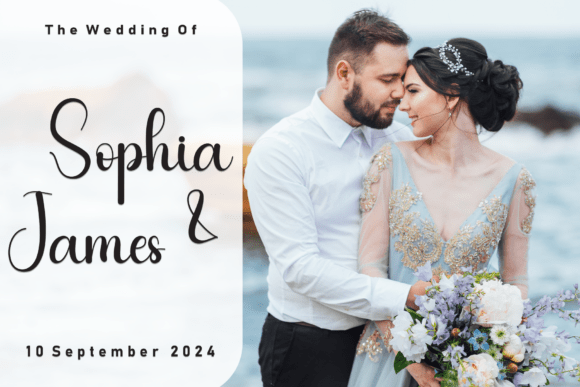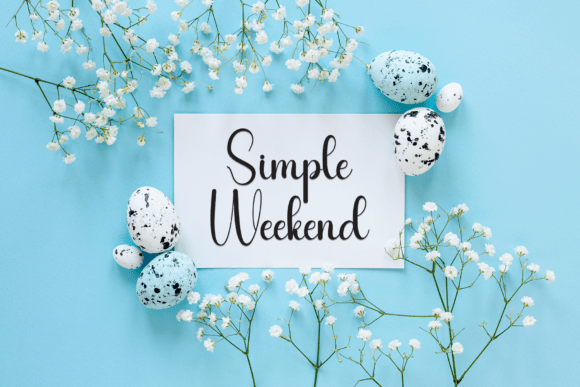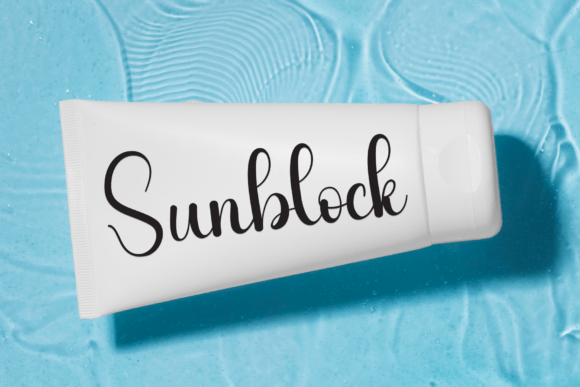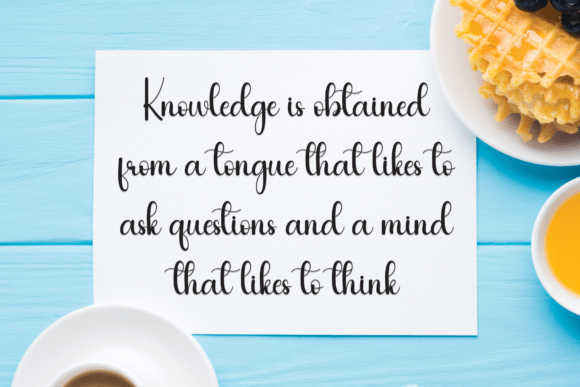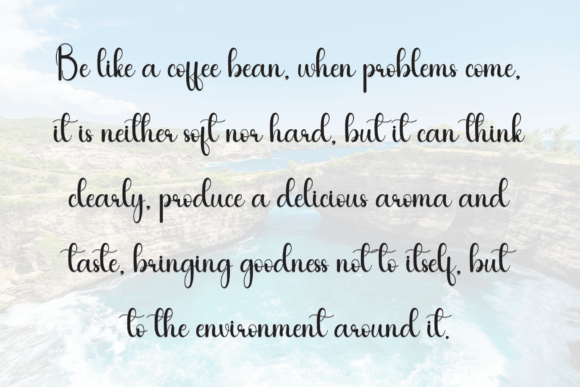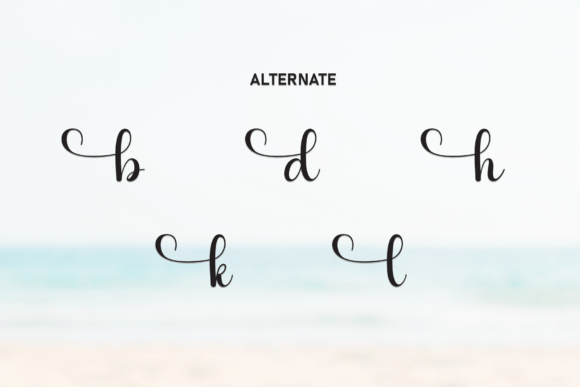
Introducing Beach Font: A Harmonious Blend of Charisma and Elegance
Are you looking for a font that can add a touch of magic to your design projects? Look no further than Beach Font, a beautiful script font that combines charisma and elegance in a single, artful stroke. This stunning typeface is a celebration of typography at its finest, making it perfect for designers and crafters who want to create something truly special.
The Magnetic Allure of Beach Font
The Beach Font emits a captivating, inviting energy that’s unmatched in its elegance. Its magnetic allure is sure to draw in your audience, making it perfect for projects that require a touch of sophistication and refinement. Whether you’re creating wedding invitations, emotion-driven written compositions, or any design project that calls for a hint of fairy-tale magic, Beach Font is the perfect choice.
Explore Narrative Depths with Beach Font
With Beach Font, you can explore narrative depths like never before. This expertly drawn typeface brings an exhilarating element of pleasant surprise enveloped in refined sophistication. Its unique and artful stroke is sure to add a touch of personality to your design projects, making them stand out from the crowd.
The Perfect Choice for Designers and Crafters
Beach Font is the perfect choice for designers and crafters who want to infuse their artistic undertakings with a vibrant dash of cheerfulness. Its mesmerizing charm is poised to capture the hearts of your audience, making it perfect for projects that require a touch of whimsy and elegance. Whether you’re creating:
- Wedding invitations
- Emotion-driven written compositions
- Branding and packaging designs
- Or any other design project that calls for a hint of fairy-tale magic
Beach Font is sure to be a great addition to your font collection.
One of the best things about Beach Font is that it’s PUA encoded, which means you can easily access all of the glyphs and swashes with ease. This makes it easy to customize your designs and add a touch of personality to your projects.
Key Features of Beach Font
- Beautiful script font with a harmonious blend of charisma and elegance
- Perfect for wedding invitations, emotion-driven written compositions, and any design project that calls for a hint of fairy-tale magic
- Expertly drawn typeface with a unique and artful stroke
- Perfect for designers and crafters who want to add a touch of whimsy and elegance to their projects
In conclusion, Beach Font is a stunning script font that’s sure to add a touch of magic to your design projects. Its harmonious blend of charisma and elegance makes it perfect for projects that require a touch of sophistication and refinement. With its PUA encoding and easy access to glyphs and swashes, Beach Font is a great addition to any font collection. So why wait? Download Beach Font today and start creating your own beautiful designs!
Get Ready to Succumb to the Mesmerizing Charm of Beach Font
Beach Font is poised to infuse your artistic undertakings with a vibrant dash of cheerfulness. Its mesmerizing charm is sure to capture the hearts of your audience, making it perfect for projects that require a touch of whimsy and elegance. So don’t wait any longer, get ready to succumb to the mesmerizing charm of Beach Font and take your design projects to the next level!